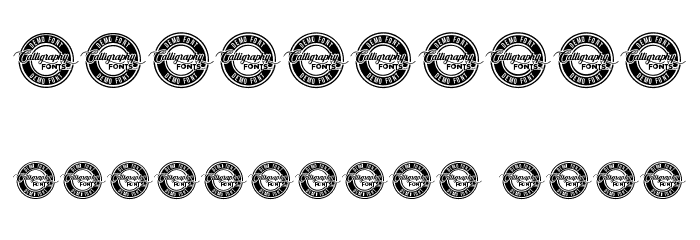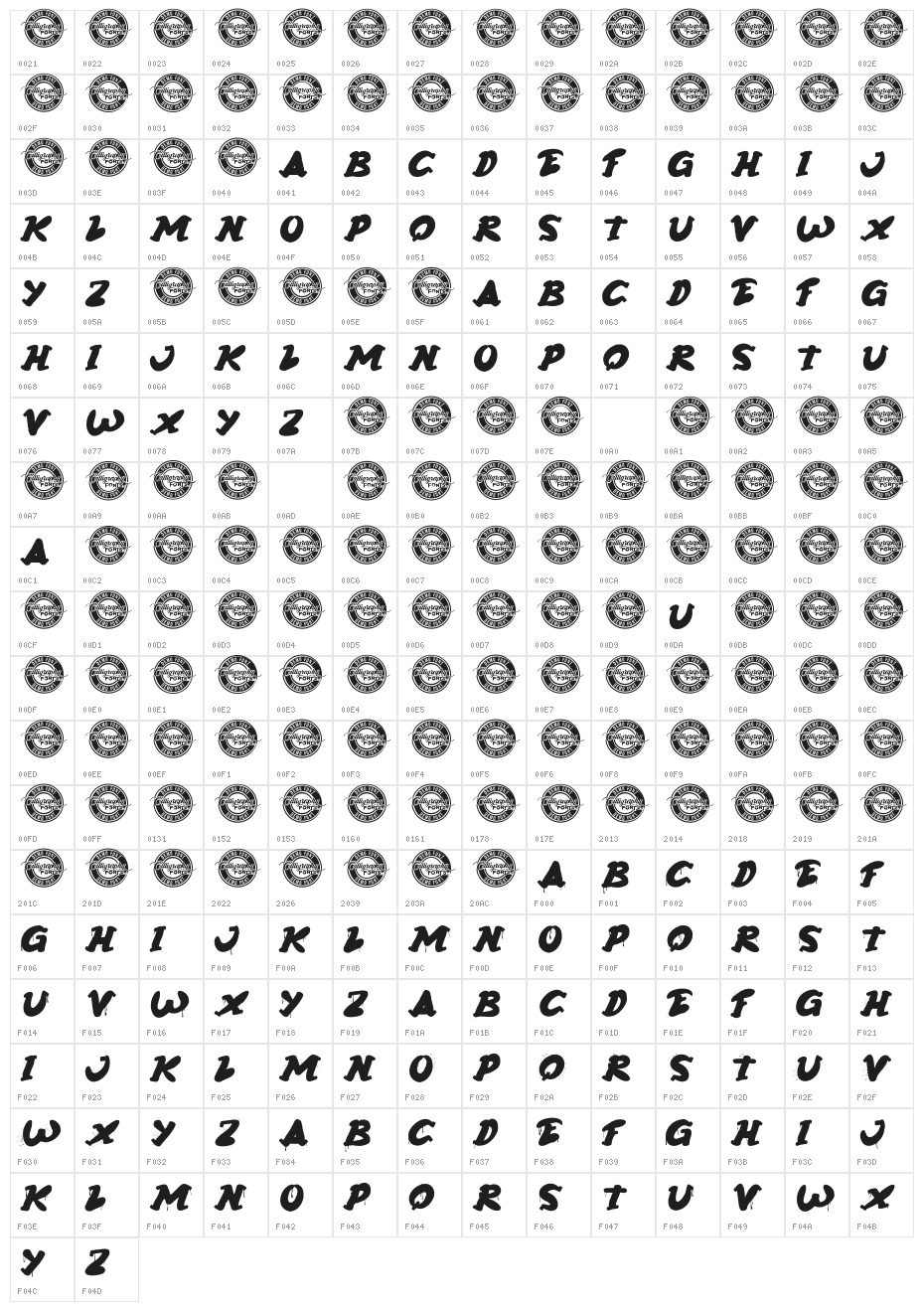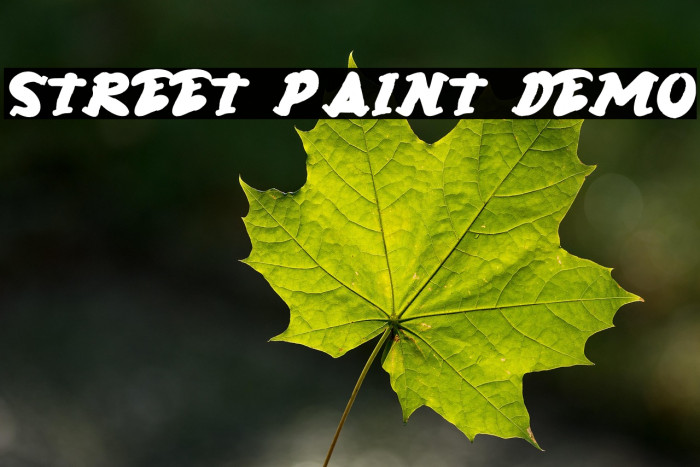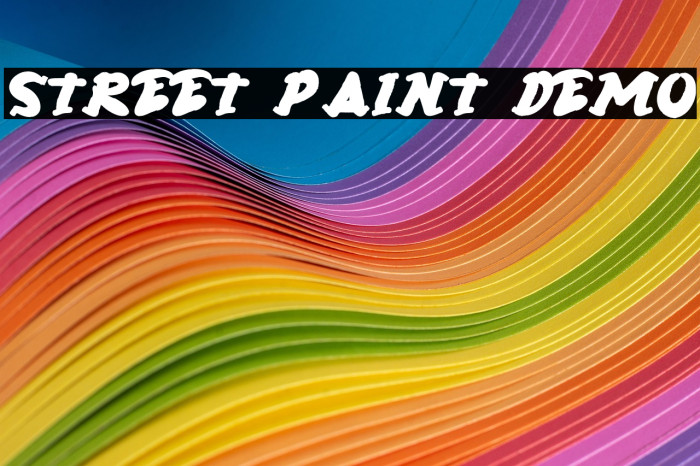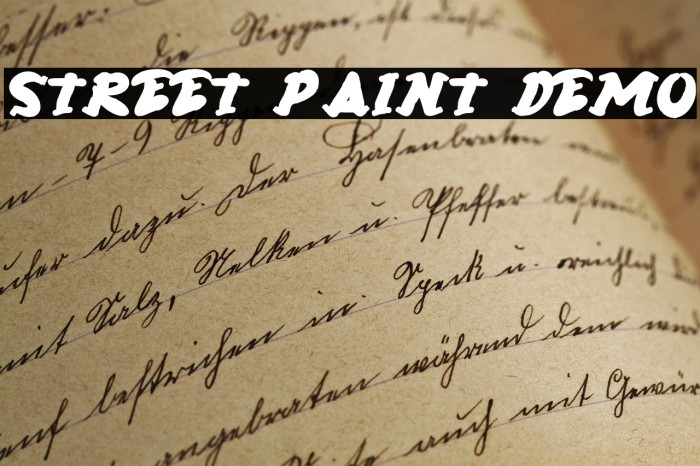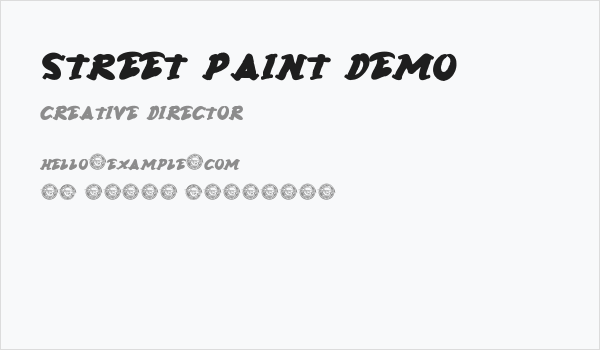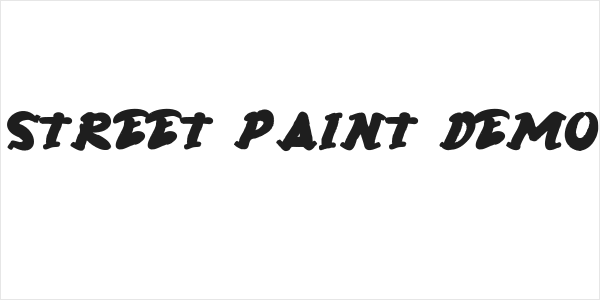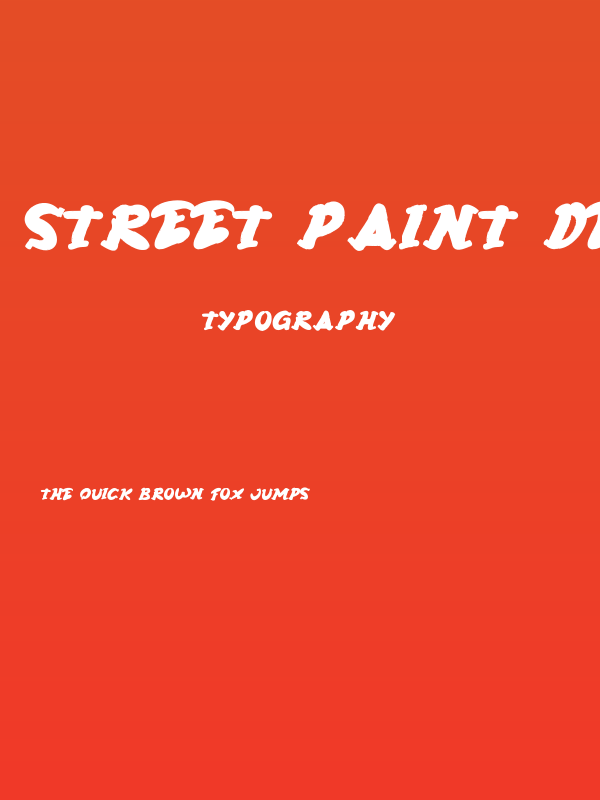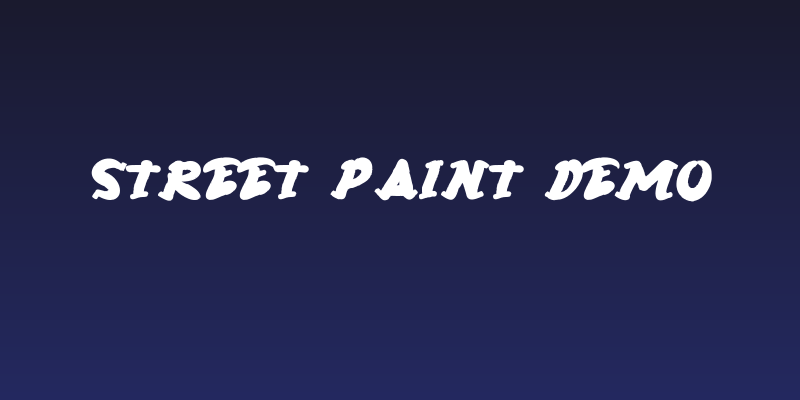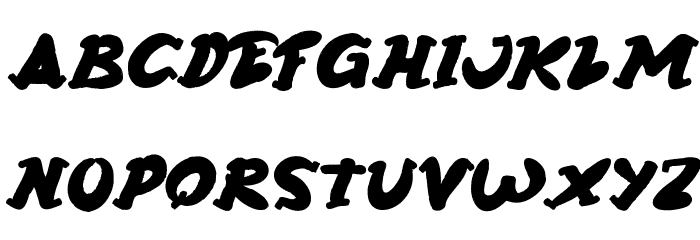
Street Paint Demo Font
Street Paint Demo Description
This font features a bold and dynamic script style, reminiscent of street art and graffiti. The letters are characterized by thick, sweeping strokes that convey a sense of movement and energy. Each character is uniquely crafted, with some letters having exaggerated curves and angles, adding to the overall artistic flair. The uppercase letters maintain a consistent height, while the lowercase letters are slightly smaller, providing a balanced look. The font's design is both eye-catching and legible, making it suitable for creative and expressive projects. Its boldness ensures that it stands out in any context, whether used for headlines, logos, or artistic designs.